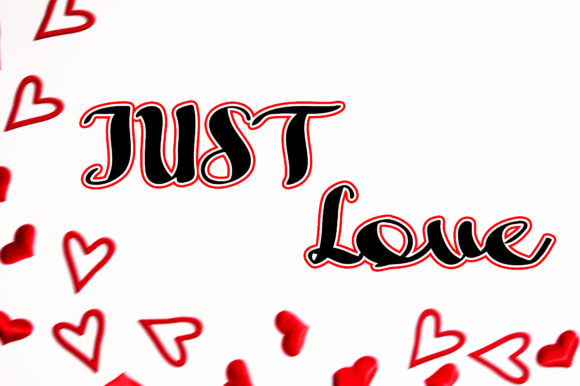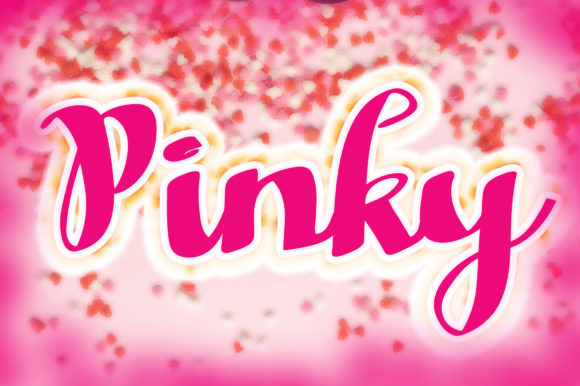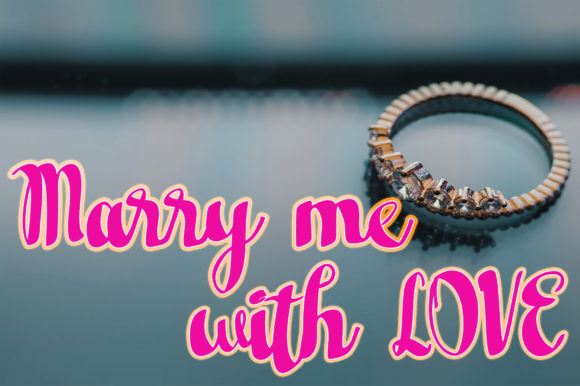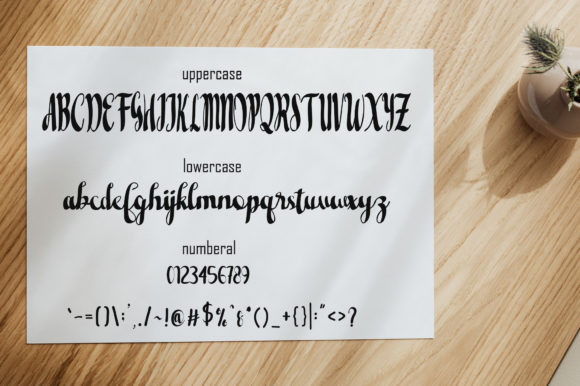
Have you ever sat at your desk, staring at a blank page, trying to find the perfect font to bring your vision to life? You’ve scoured through countless options, but none seem to capture the essence of what you’re trying to convey. That’s where the Asti Lovely Babe Font comes in – a beautiful, elegant script that’s sure to elevate your projects to the next level.
With its contemporary atmosphere and impeccable form, inspired by timeless classic calligraphy, the Asti Lovely Babe Font is a valuable addition to any designer’s toolkit. Its balanced and varied strokes make it perfect for a wide range of applications, from wedding invitations to fashion labels. Whether you’re a seasoned pro or just starting out, this font is sure to impress.
Asti Lovely Babe Font Key Features
- Font Type: Handwritten, Script Font
- Unique Characteristics: Unique, elegant, and feminine script font, perfect for creating a romantic and vintage atmosphere
Designer Review: Asti Lovely Babe Font
I recently had the chance to work with the Asti Lovely Babe Font, and here’s my honest review.
- The Asti Lovely Babe Font has a unique, feminine touch that’s perfect for projects that require a soft, elegant feel.
- The font is highly legible, even at small font sizes, making it suitable for a variety of applications.
- The font family includes a range of weights and styles, offering flexibility for designers to experiment with different looks.
- The Asti Lovely Babe Font may not be the best choice for projects that require a bold, dramatic look.
- The font’s subtlety may make it difficult to read in certain contexts, such as on low-resolution screens or in environments with high levels of noise.
The Asti Lovely Babe Font is a solid choice for designers looking for a elegant, feminine font. While it may not be the most versatile font out there, it excels in certain areas and is definitely worth considering for projects that require a soft, sophisticated look.
To get the most out of the Asti Lovely Babe font, use it for:
- Creative projects (e.g., graphic design, digital art).
- Emphasizing femininity and elegance in your designs.
- Combining with other bold, playful fonts for a unique look.
The Asti Lovely Babe font is commonly used for:
- Social media posts (e.g., Instagram, Facebook).
- Flyers and brochures.